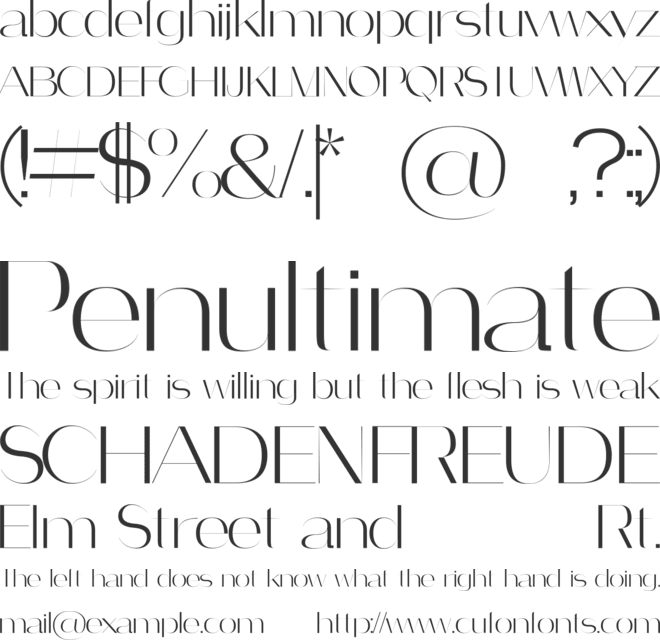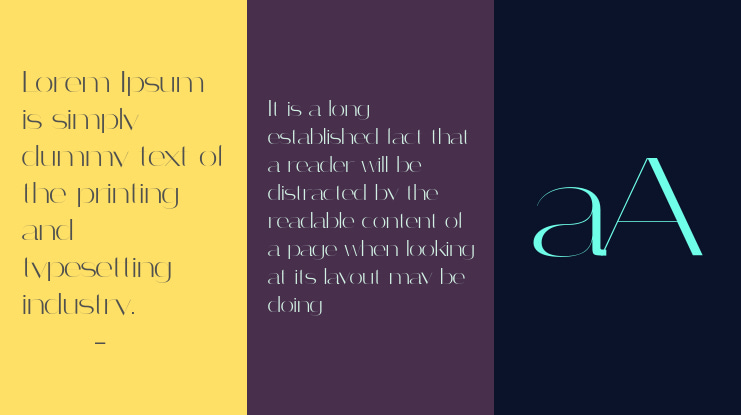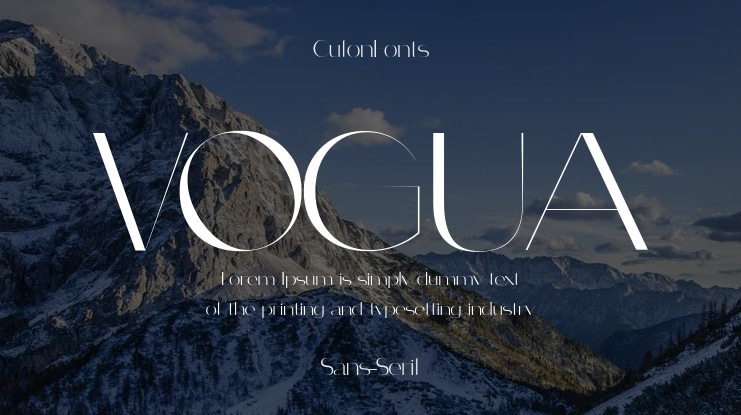
VOGUA Font Family
Vogua is a fashion-forward sans serif with multilingual support—perfect for editorial branding, minimalist presentations, and modern packaging.